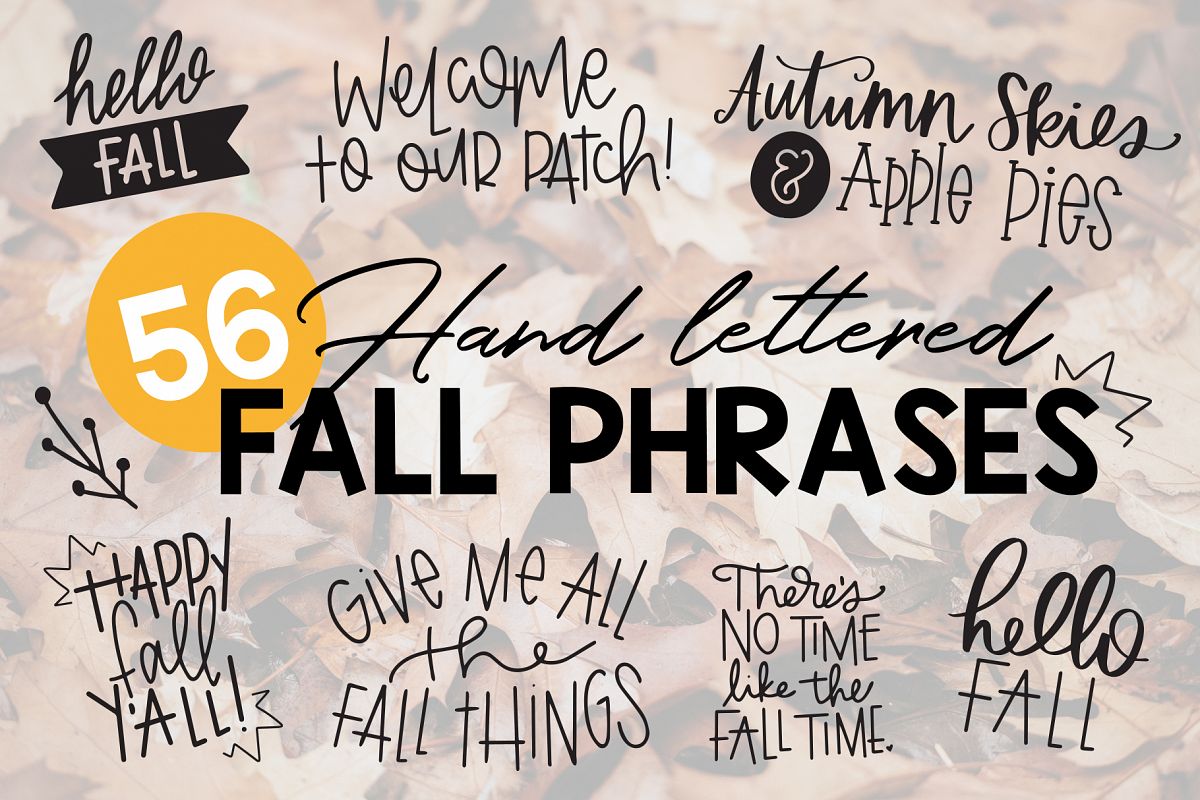
56 Hand Lettered Fall Phrases! These are great for crafters to use on hand painted wood signs, shirts, bags, cards, fall prints for decoration, fall family photos, anything you can dream up!
This is a symbols font! So all you have to do is type letters A-Z (uppercase & lowercase) and numbers 1-4 and you will get a hand lettered fall phrase!